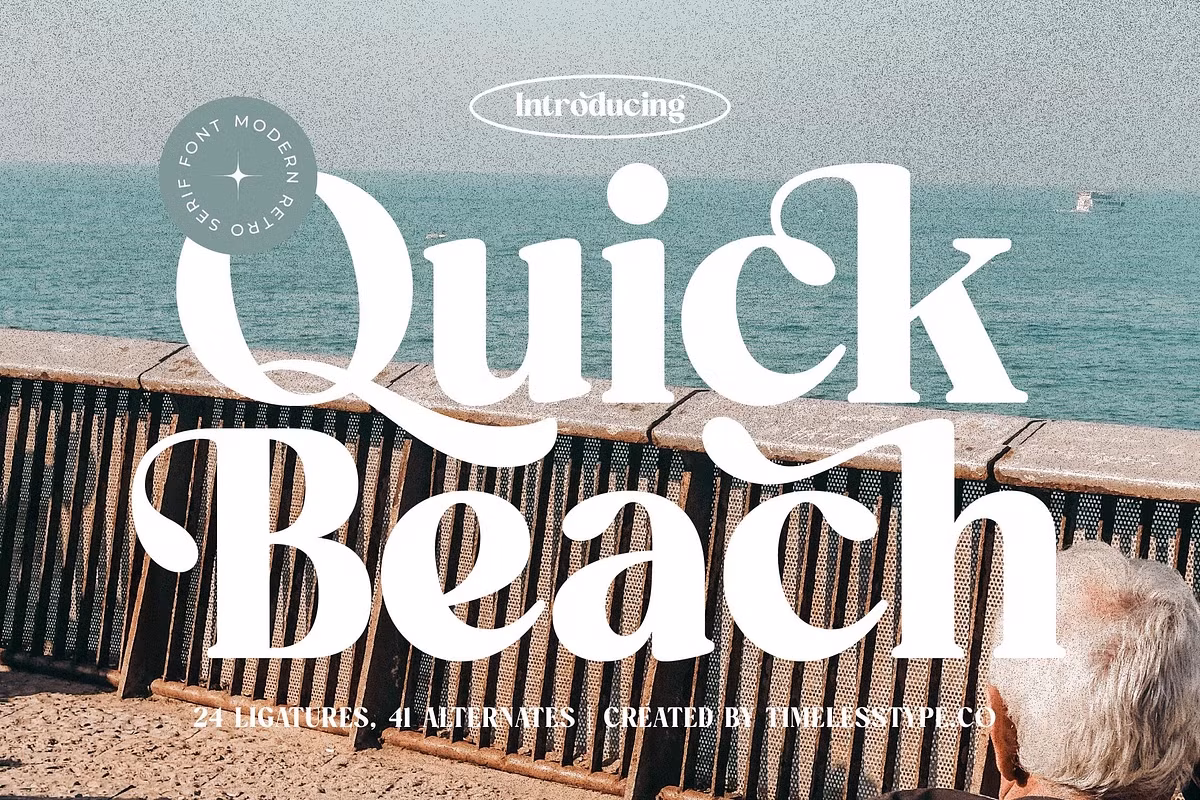
Quick Beach Modern Retro Serif Font Free Download
Quick Beach Modern Retro Serif Font Free Download is a stylish and nostalgic typeface that captures the sun-soaked spirit of vintage beach culture with a modern twist. With its bold serifs, groovy curves, and laid-back aesthetic, this font is perfect for summer branding, retro-inspired logos, travel posters, apparel design, packaging, and social media graphics.
Quick Beach brings together classic retro vibes with contemporary polish, making your typography pop with both personality and readability. Whether you're channeling surf culture, vintage travel ads, or fun-in-the-sun energy, this font makes your design feel warm, bold, and beautifully beachy.